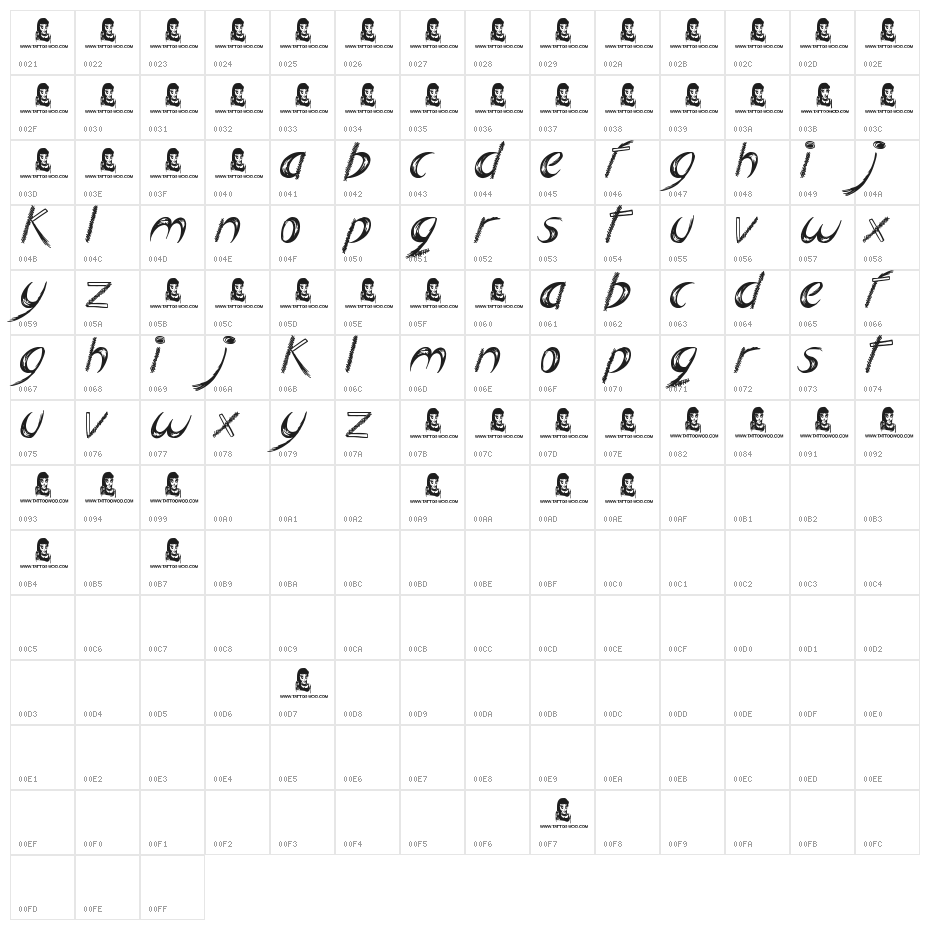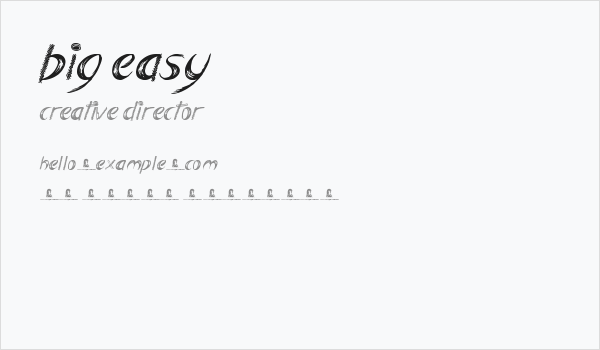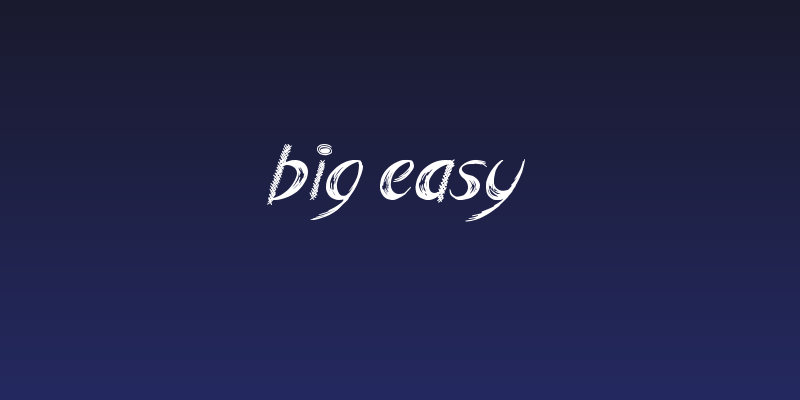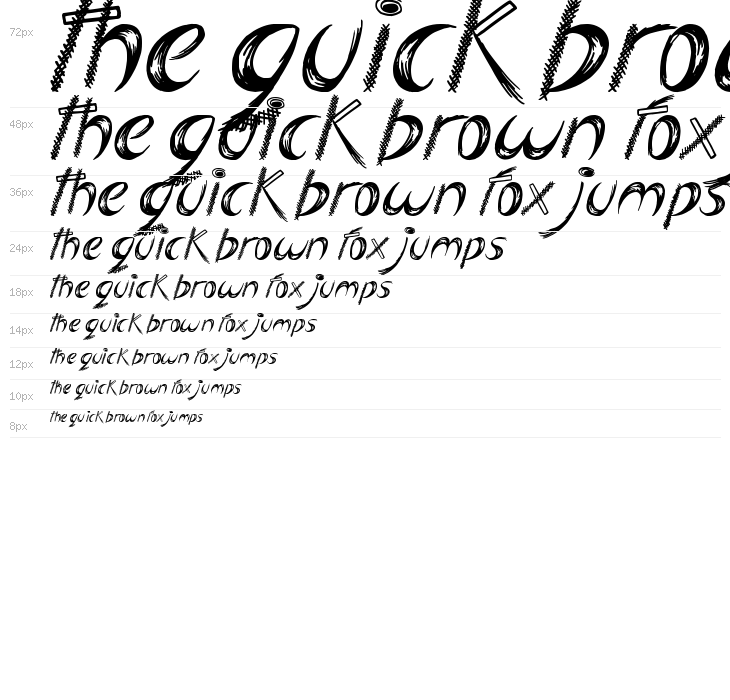
Big Easy Font
| Gesamtstil | Modern, Artistic |
| Vorgeschlagene Projekte | Ideal for creative projects such as posters, album covers, and branding materials that require a bold and artistic touch. |